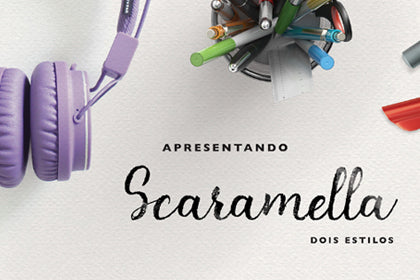
Free Scaramella Script Font
Introducing you to the absolutely beautiful free scaramella script font. Free Design Resources has created this amazing and beautiful free font. Easily amaze your audience with this cool font and make your graphic designs pop up from the crowd.